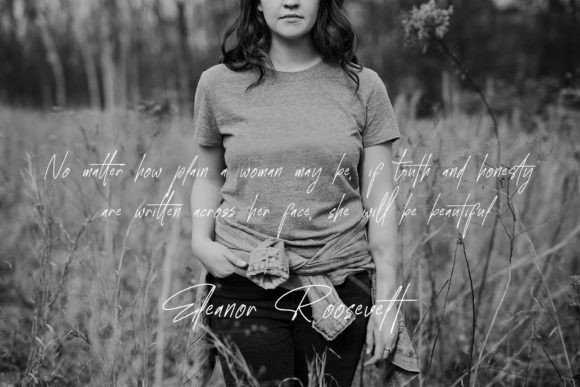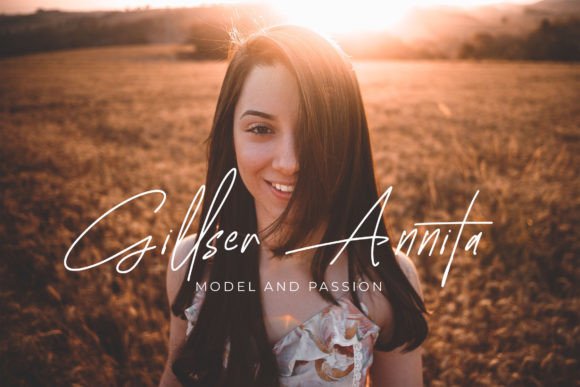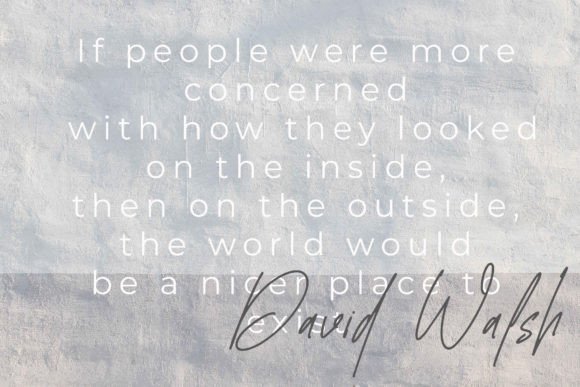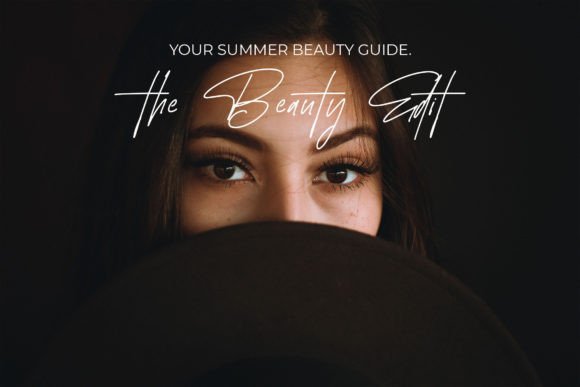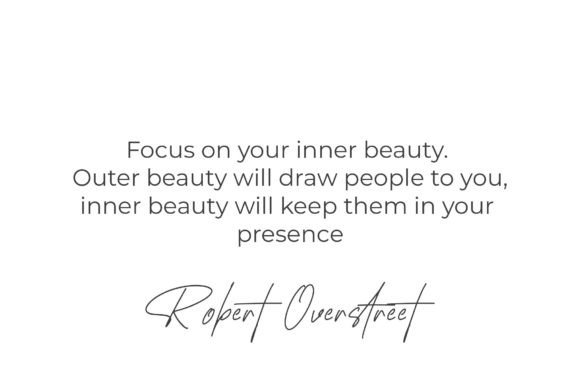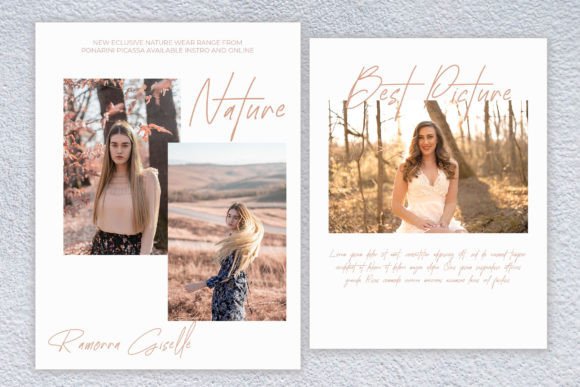
Introduction to Enhattica Font
Enhattica is a refined script font designed with a signature style, bringing a touch of elegance and sophistication to your projects.
Each character is uniquely crafted, adding an exclusive and polished look to your designs Perfect for logos, branding, invitations, and more, Enhattica will enhance the visual appeal of any product, making it stand out effortlessly.
Key Features of Enhattica Font
Why Choose Enhattica Font?
Enhattica Font offers exceptional quality and versatility, making it a valuable addition to your design toolkit. Whether you’re creating for personal projects or commercial use, Enhattica Font delivers professional results.